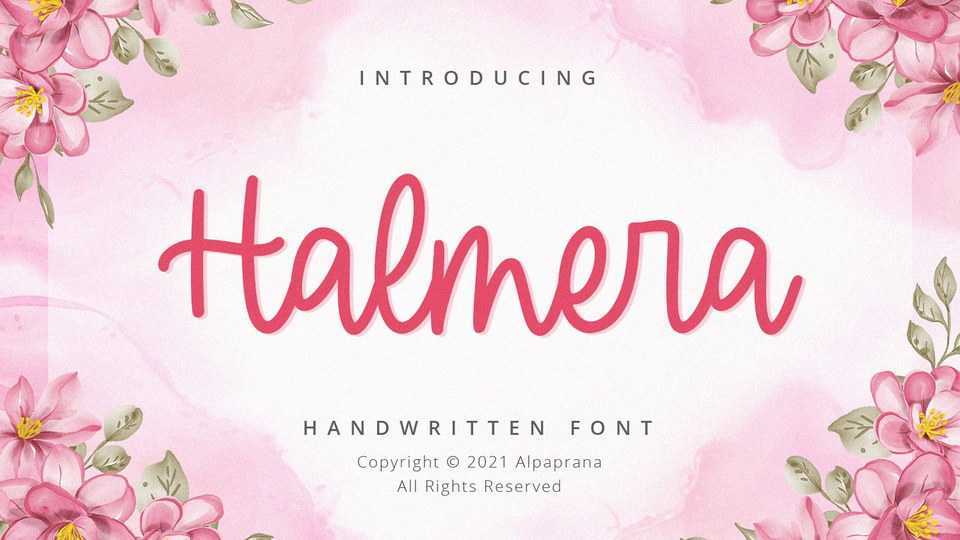
Download Halmera font, a lovely handwritten typeface with an authentic and casual feels. It will be perfect for notes, quotes, crafts and other projects that needs a personal touch.
Designer: Alpaprana Studio